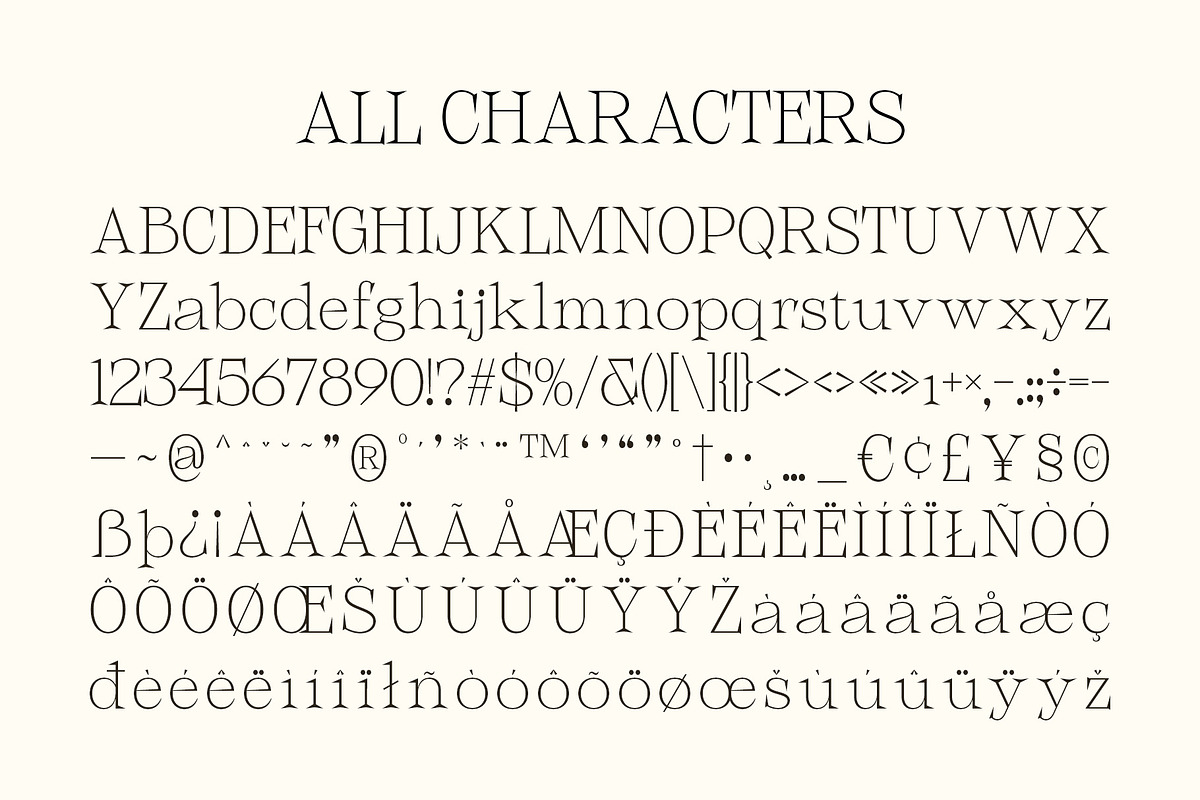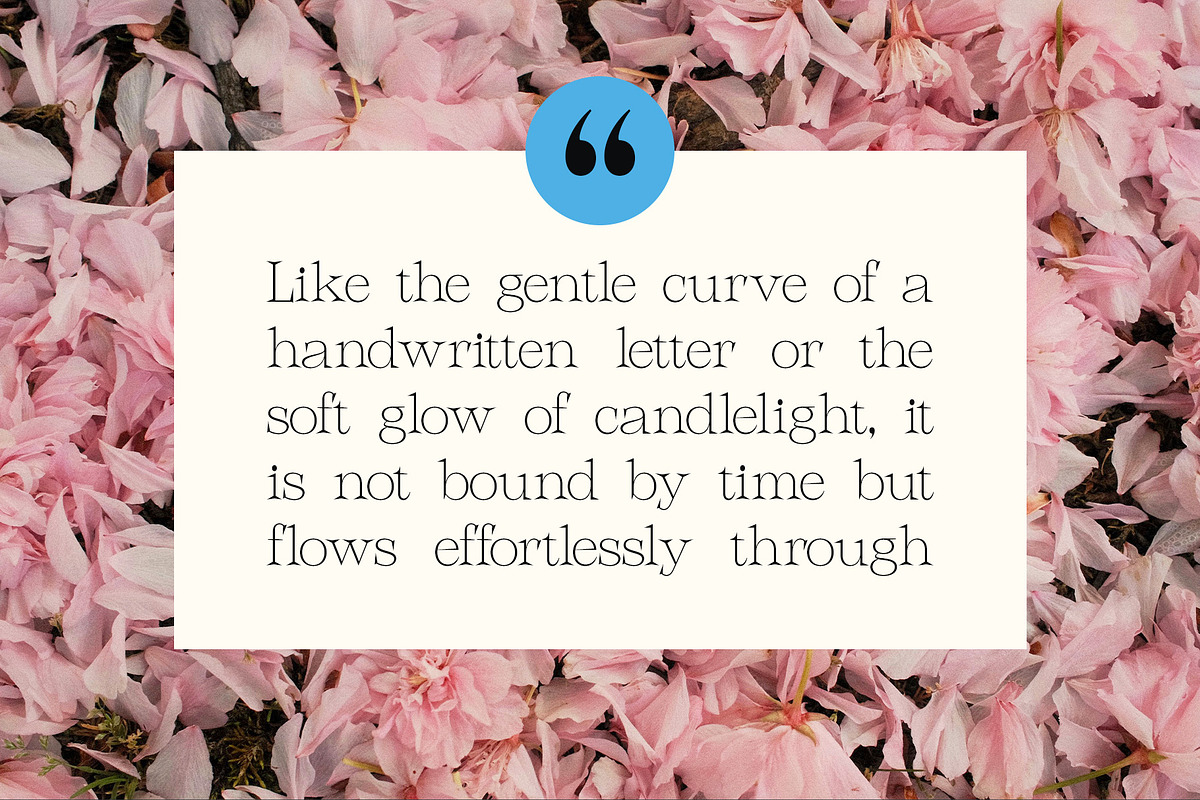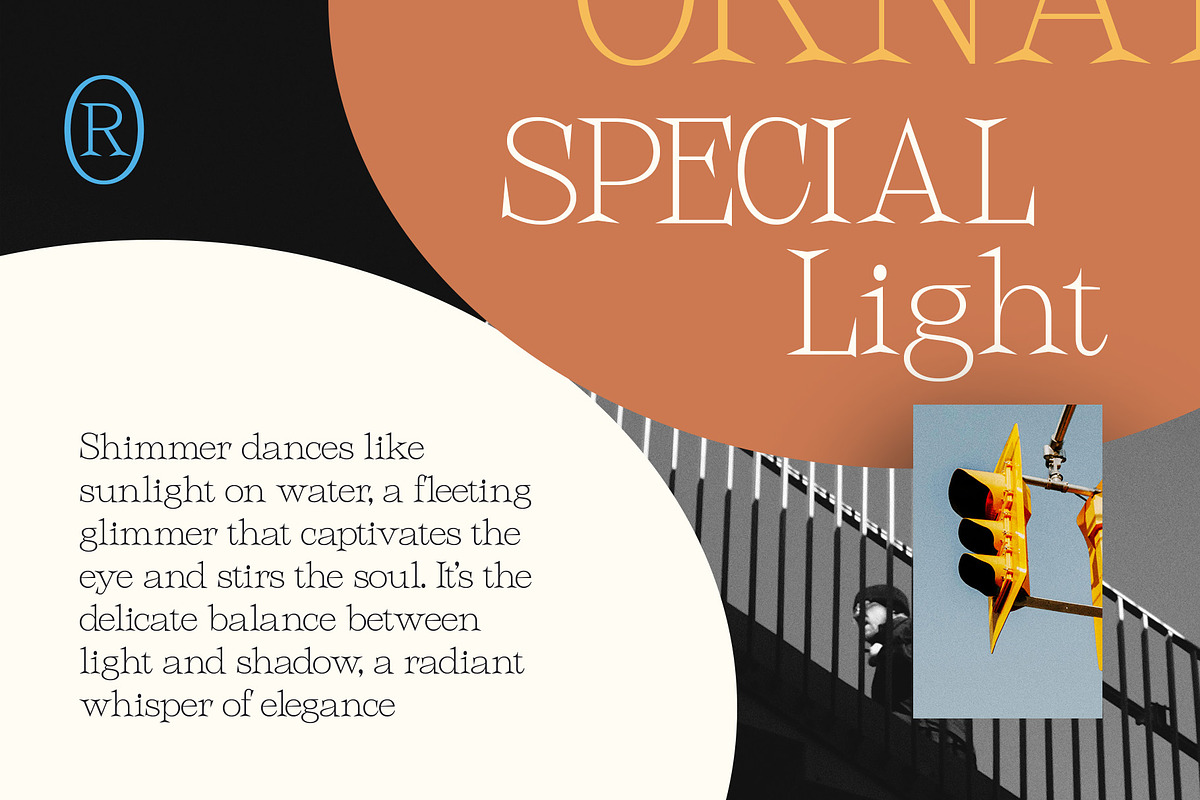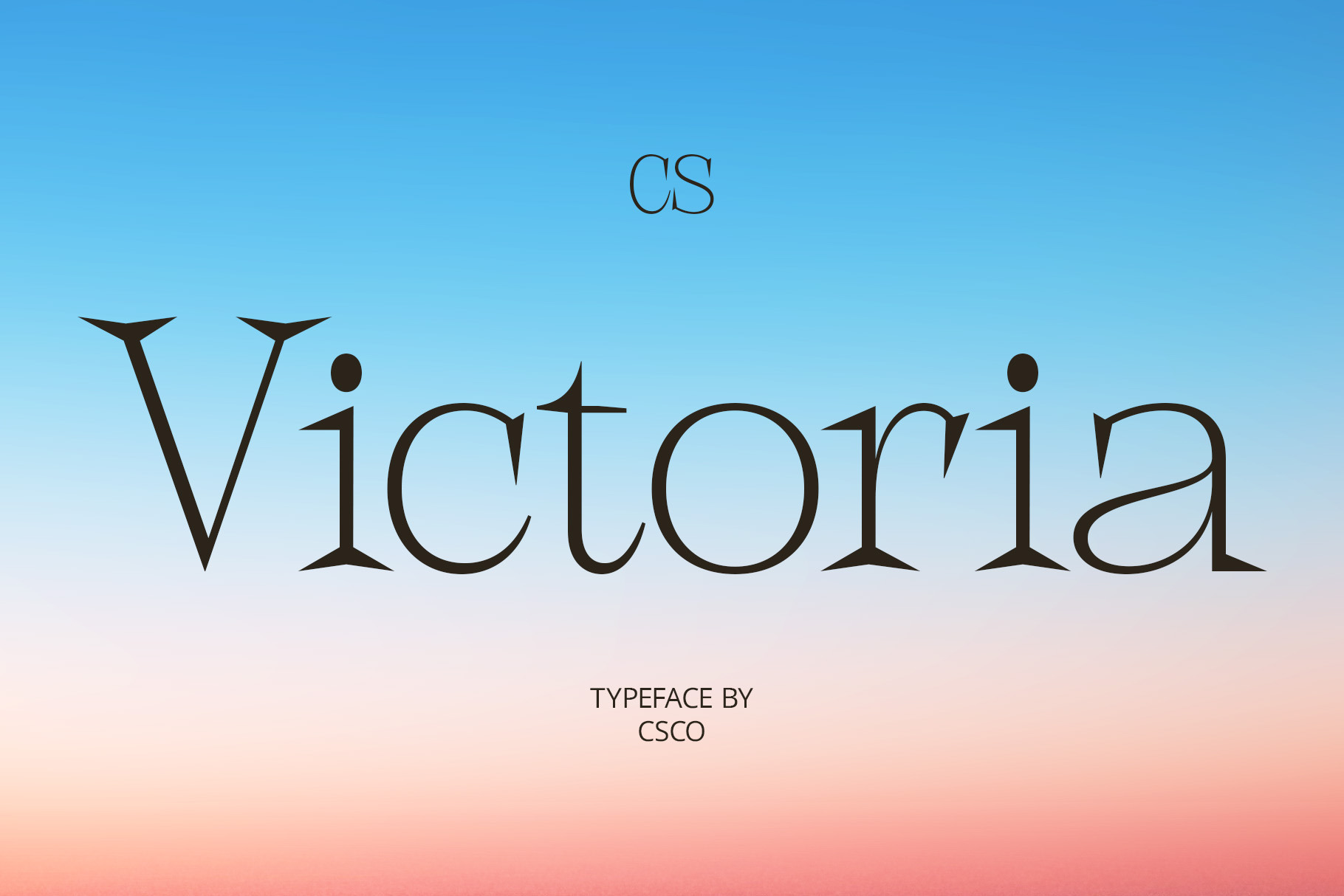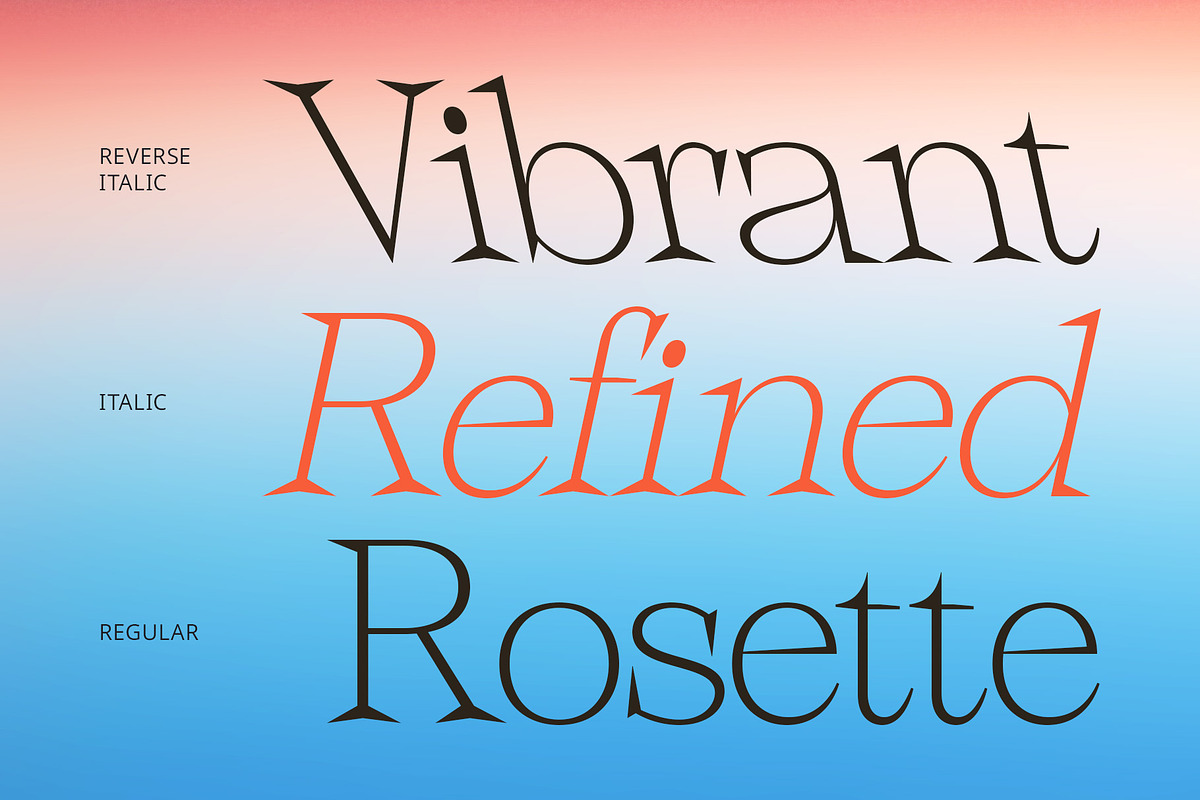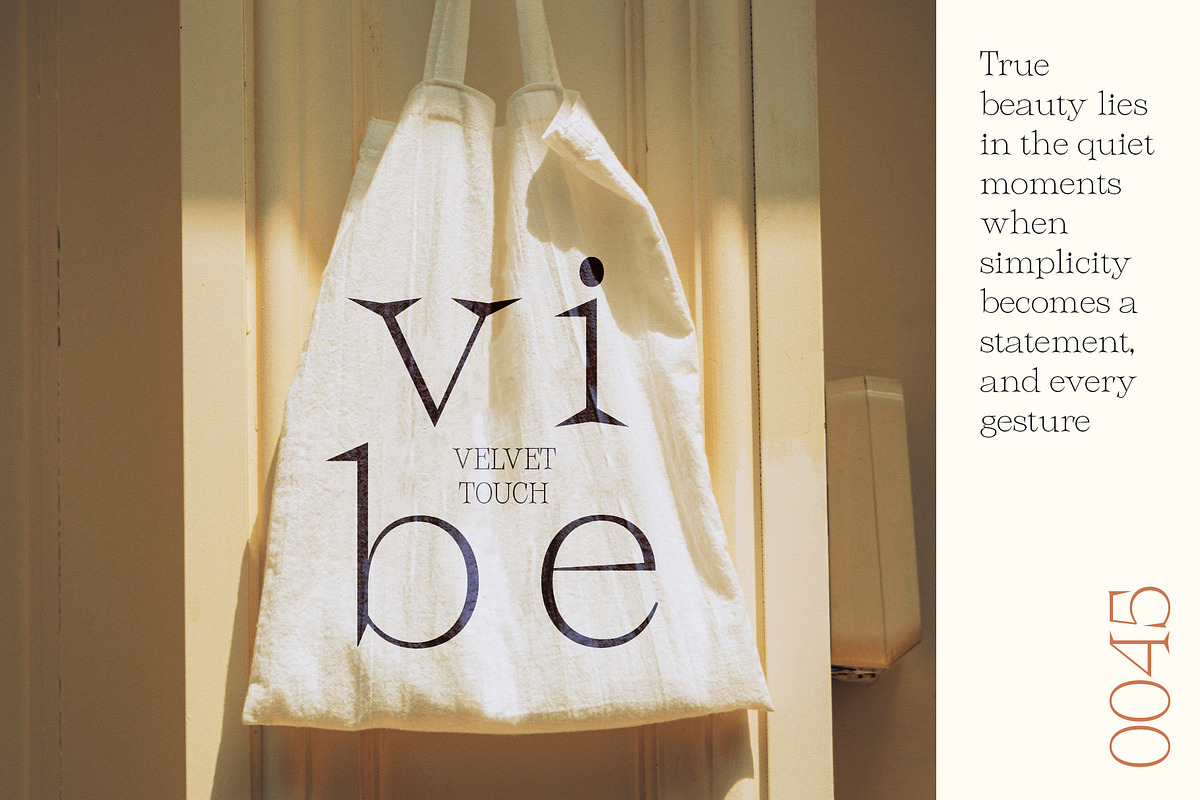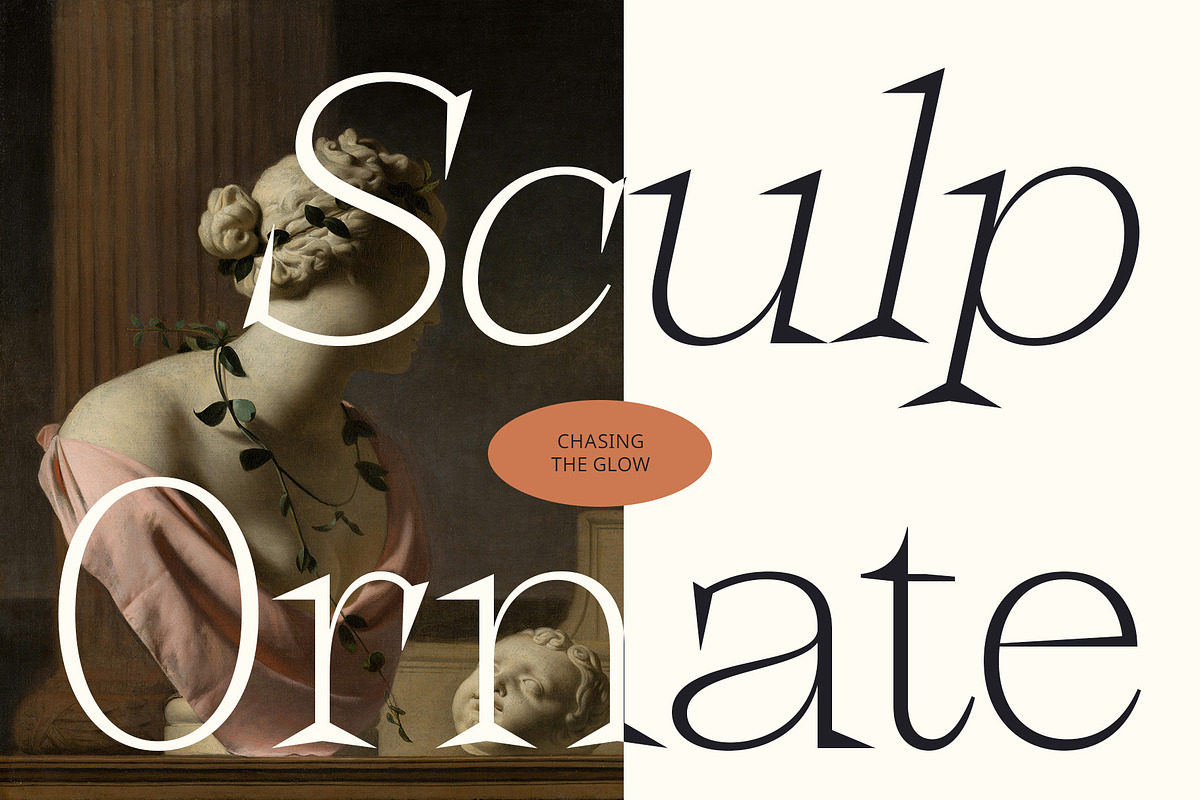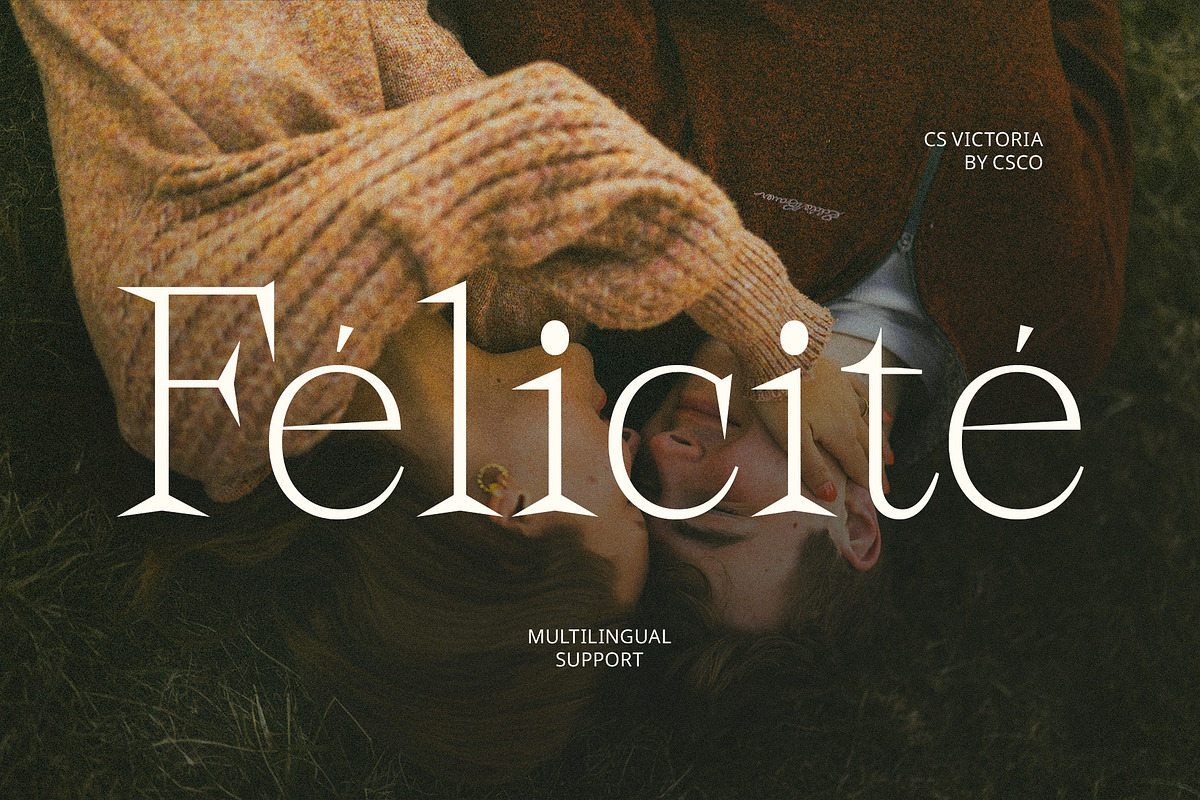
CS Victoria – Modern Font
CS Victoria – Modern Font: Timeless Elegance with a Contemporary Edge
Classic Modern Serif with Refined Character CS Victoria – Modern Font is a classic serif typeface that balances tradition with modernity. Featuring clean, minimalist forms and precise lines, it captures a timeless elegance while maintaining a fresh, contemporary feel. Its sharp serifs and graceful structure create a refined look that suits a wide range of sophisticated design needs.
Elegant Structure with Balanced Proportions This font’s well-crafted letterforms showcase balanced proportions and sharp contrast, resulting in a sleek, polished appearance. The harmonious spacing and structure ensure both visual appeal and clarity, making it an excellent choice for text-heavy layouts where style and readability must coexist.
Versatile for Professional and Luxury Designs CS Victoria’s elegant yet understated nature makes it highly versatile for various applications. From luxury branding to editorial layouts, it delivers a professional, stylish tone that elevates your visual identity. It is especially suitable for fashion magazines, upscale packaging, corporate identities, and premium logos.
Designed for Sophistication and Readability Despite its refined details, CS Victoria maintains excellent readability at different sizes. Whether used in large headlines or smaller body text, it retains its clear, confident presence. Its modern serif charm ensures that your message is communicated with both style and grace.